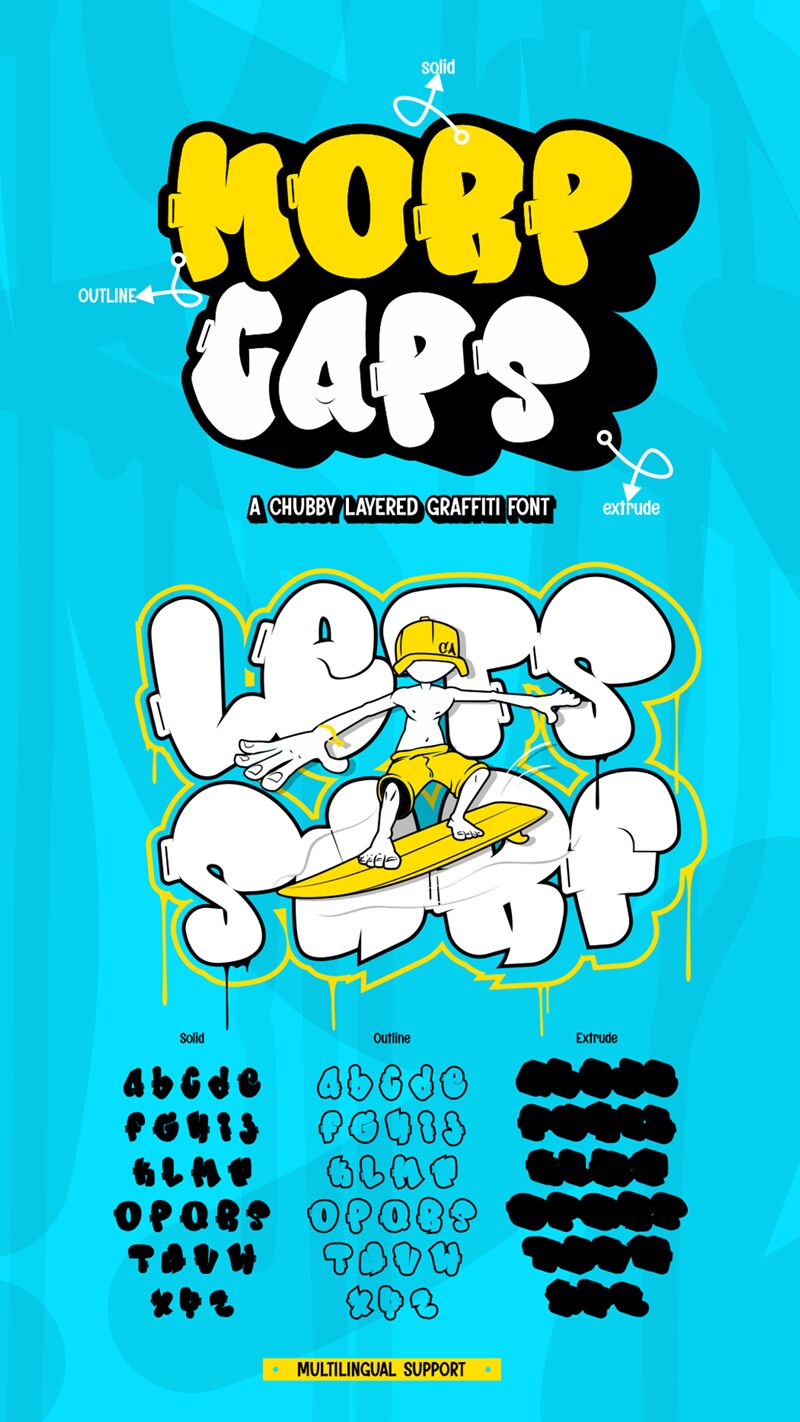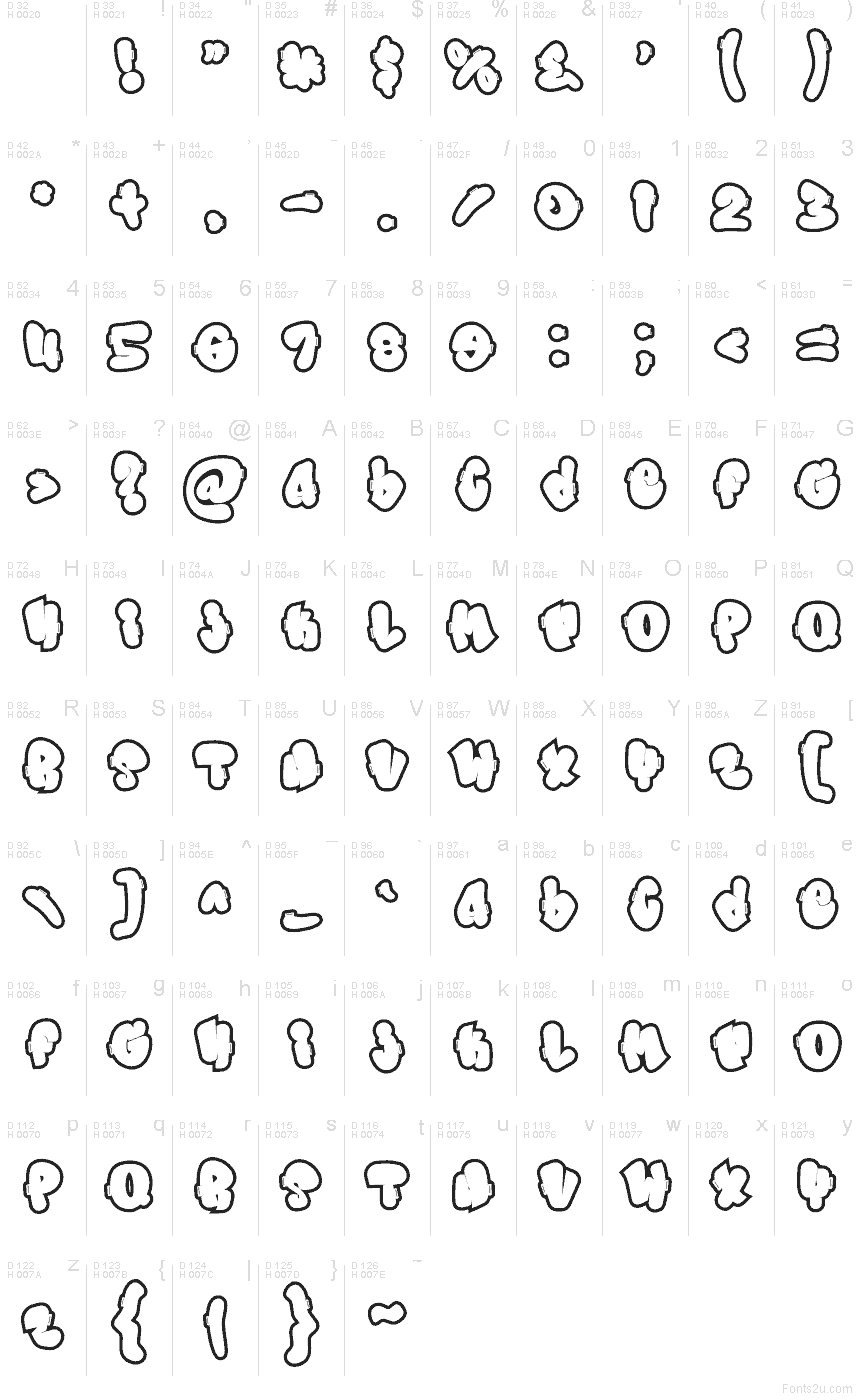
Morp Caps Outline Outline
Morp Caps Outline font by Rizal Yusepudin Salman & Muhammad Panji Ramdhani of Sipanji x Figuree is a free graffiti font, drawn as puffy bubble letters with a clean, airy outline. It feels like fresh paint traced in one confident pass—rounded, playful, and loud without getting muddy. The wide shapes keep it readable at a glance, while the hollow centers add a lightweight, sticker-like pop.
Using Morp Caps Outline on streetwear graphics, skate posters, youth event flyers, album covers, Twitch/YouTube thumbnails, sticker packs, and pop-up merch tags gives your message instant bounce. This free font shines when you scale it big and let the outline breathe; add a bright fill or a gritty texture behind it for extra punch. Pair it with a plain condensed sans for captions so the headline stays the star.